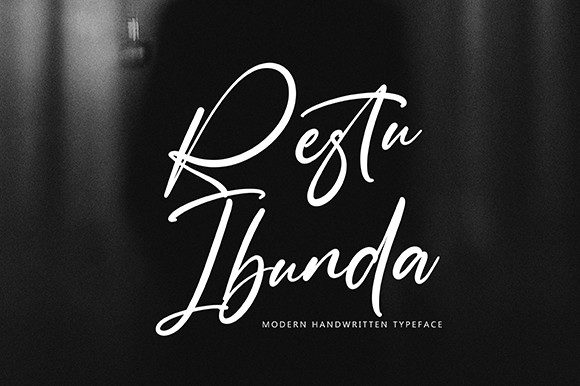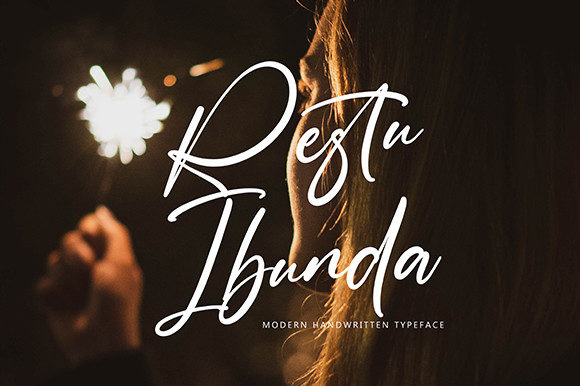
Restu Ibunda Font: Elegant Handwritten Script for Wedding & Logo Design
About the Restu Ibunda Font
Crafted with precision, the Restu Ibunda Font is ready to bring your ideas to life. Restu Ibunda is a delicate and elegant handwritten font. Its distinct and well balanced letters make this font a masterpiece. Fall in love with its incredibly versatile style and use it to create spectacular designs!
Restu Ibunda’s elegant, delicate nature makes it ideal for projects requiring a touch of sophistication. It excels in headlines, short text blocks on invitations or greeting cards, and branding applications where a handwritten feel adds personality, such as logos for boutiques or artisanal products. Avoid using it for body text or lengthy paragraphs; its delicate strokes would quickly become illegible.
The font’s personality is undeniably refined and feminine. Pairing it with a clean sans-serif like Montserrat for body text creates a balanced contrast, while a complementary serif like Playfair Display adds a touch of traditional elegance for more formal applications. For a playful yet sophisticated touch, consider pairing it with a script font like Great Vibes, but ensure legibility remains a priority.
Consider Restu Ibunda for projects needing a graceful and feminine aesthetic. It is not suited for applications demanding high readability over extended text, such as websites or user interfaces.
Restu Ibunda Font Usage Examples
Restu Ibunda Font Example